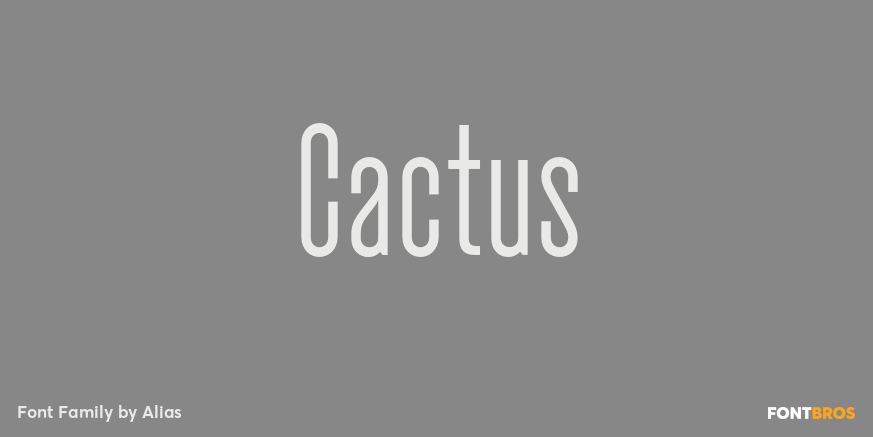
HomeFont BrosSans SerifCactus Sans Serif Cactus FacebookXPinterestWhatsApp 1 of 1 About Cactus A compressed, subtly eclectic typeface.  DOWNLOAD NOW People also explored Levisticum Font Bastrid Script Font The Greyhound Family Font Lovemind Script Font Christy Font Rughetta Font Saldina Font Corellina Font Lovely Month Font 300 0 TagsCactusCactus Font Previous articleCopperplate ModernNext articleSenlot Serif LEAVE A REPLY Cancel reply Comment: Please enter your comment! Name:* Please enter your name here Email:* You have entered an incorrect email address! Please enter your email address here Website: Save my name, email, and website in this browser for the next time I comment. Personal Use Free Foolish Hand Personal Use Free Read more about this font Mandara Personal Use Free Read more about this font Sweety Blue Personal Use Free Read more about this font Sunflower Personal Use Free Read more about this font BLOG Where to Buy American Fonts Online in 2024 Where to Buy American Fonts Online: The Ultimate Guide for 2024 Looking for the perfect American font to elevate your design projects? You're in the... Free Fonts Risk: Why Free Fonts Can Be Dangerous for Designers Best Fonts for T-Shirt Design – Top 2025 Picks How to Install and Use Fonts on Windows, macOS, and Web Projects